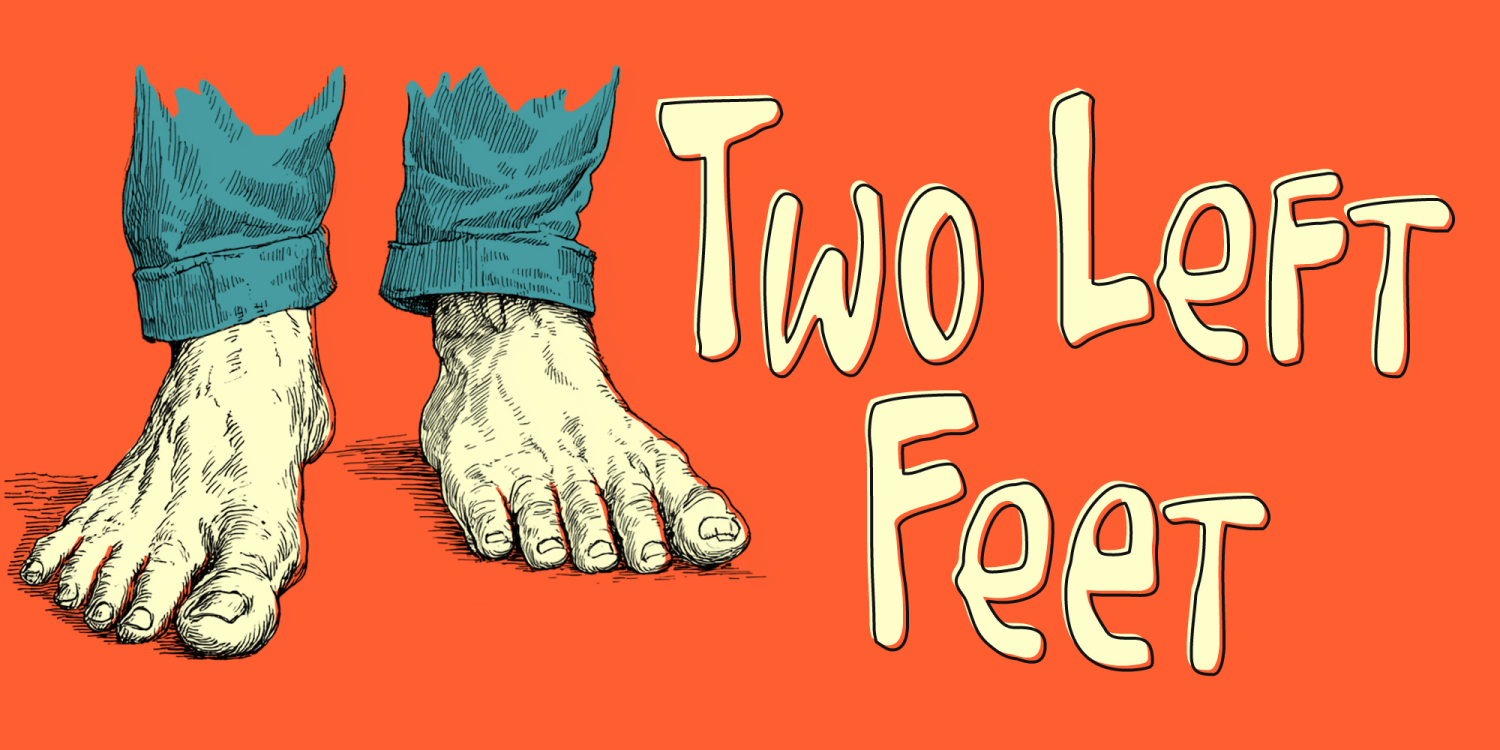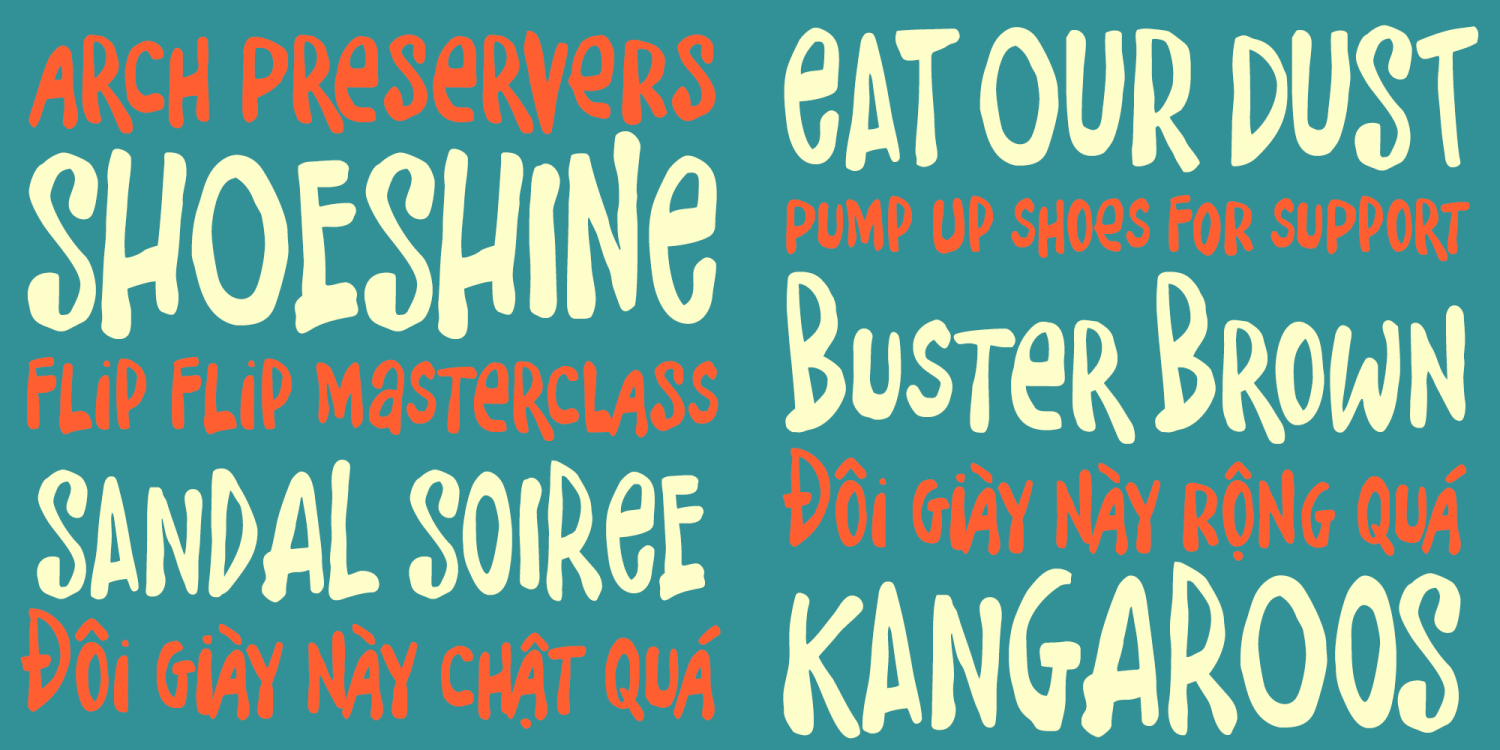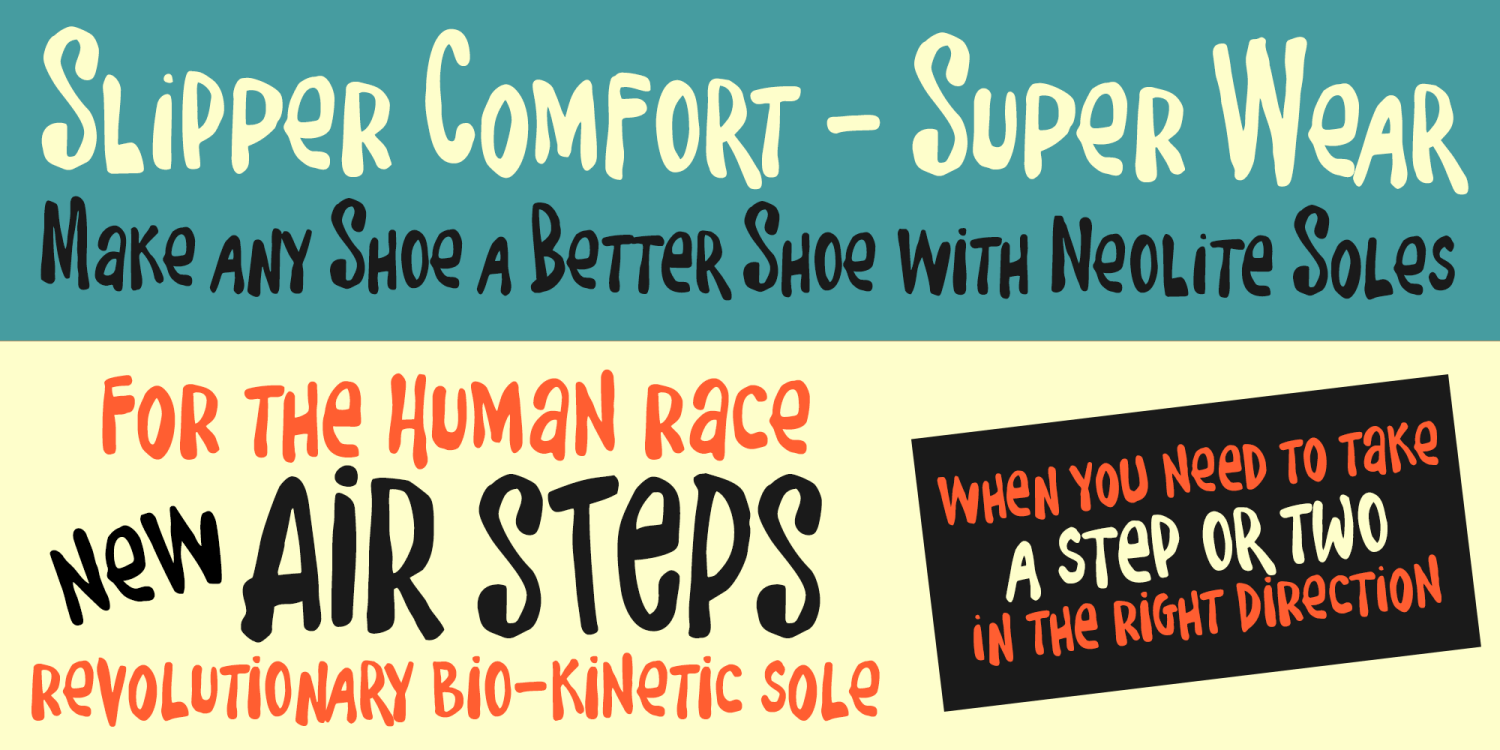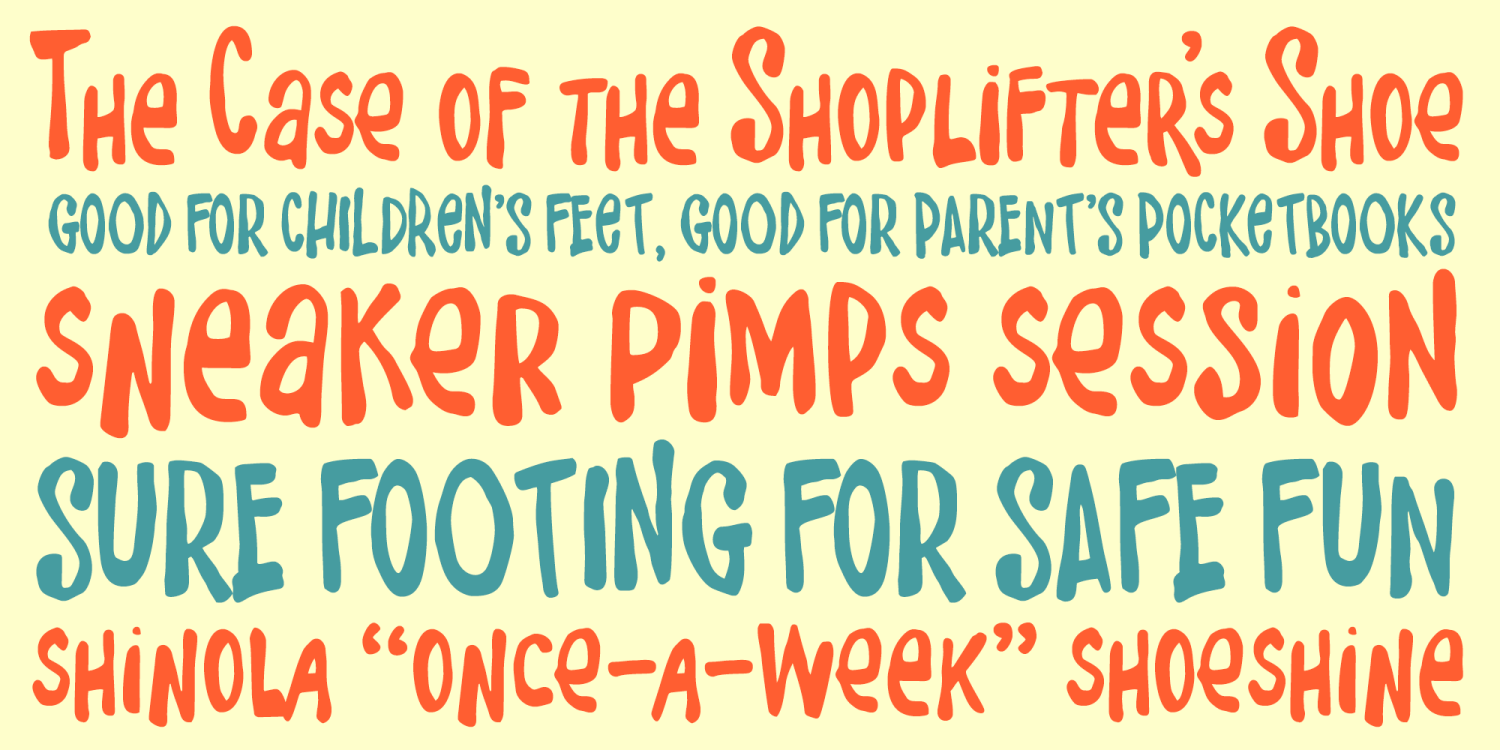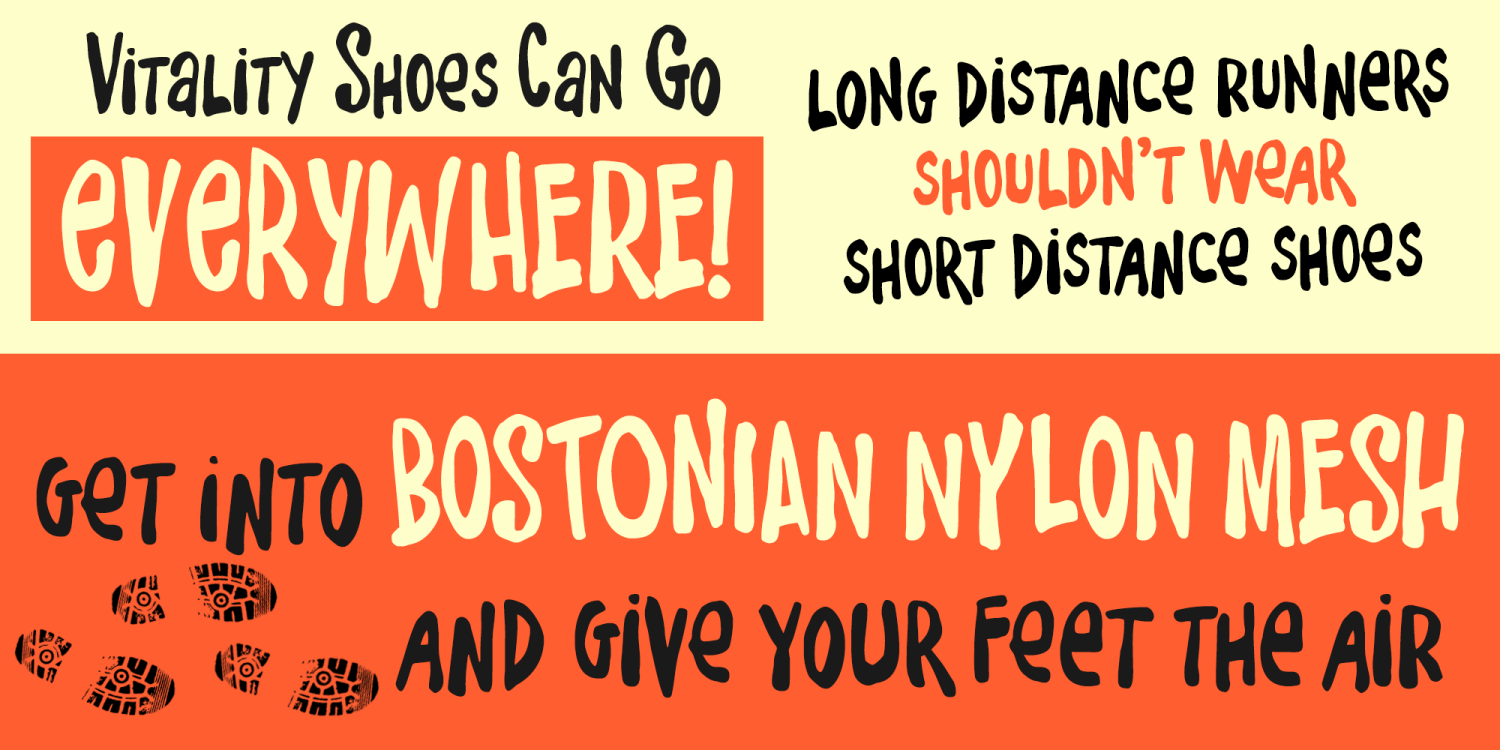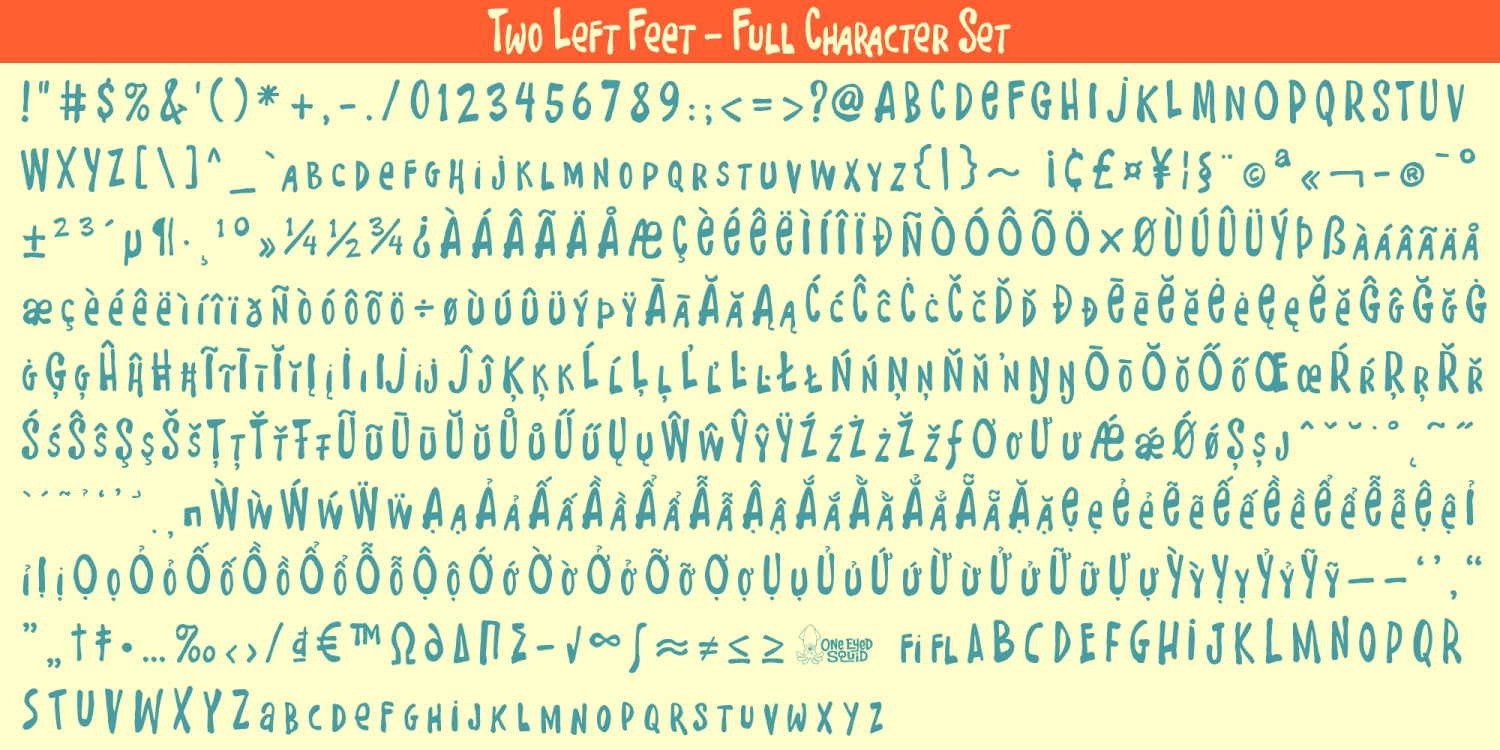
Two Left Feet
Font Family by One Eyed Squid
Two Left Feet is a clumsy, hand-drawn display font with loose brush styling, off-kilter charm, and a playful personality built around purposeful imperfections. Its lively letterforms feel casual, inky, and full of movement, while randomized alternates add even more natural variation and quirky character. Ideal for headlines, posters, branding, packaging, greeting cards, social media graphics, and other creative projects that benefit from a fun, handmade typographic voice, Two Left Feet brings expressive energy and lovable awkwardness to every layout. Includes extended Latin language support, including Vietnamese.